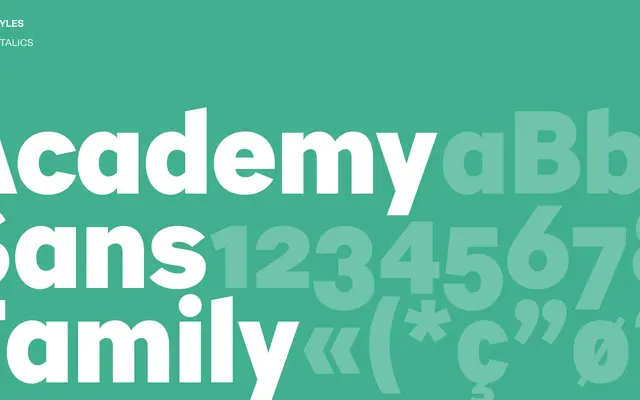
Academy Sans specimen from Playtype
A humanist sans from Playtype with an editorial character, suited to literary and cultural contexts.
Academy Sans carries the restrained warmth typical of Playtype's output, with a name that suggests institutional or academic use alongside more cultural editorial settings. The available page copy is minimal, but the tone points to a typeface designed for sustained reading as much as display use. It fits naturally in publishing, arts programming and cultural identity work.
The name and fragment of copy suggest a refined, literary sans-serif with humanist warmth, fitting the humanist sans subcategory common to Playtype's editorial range.